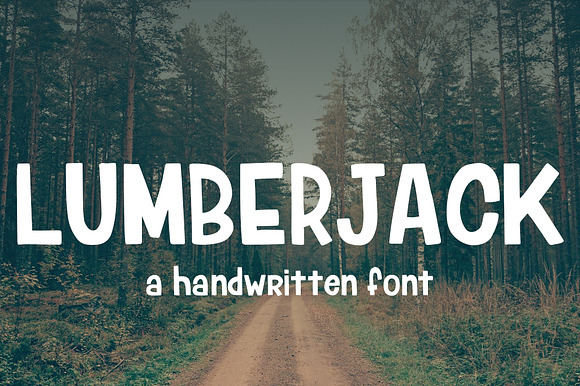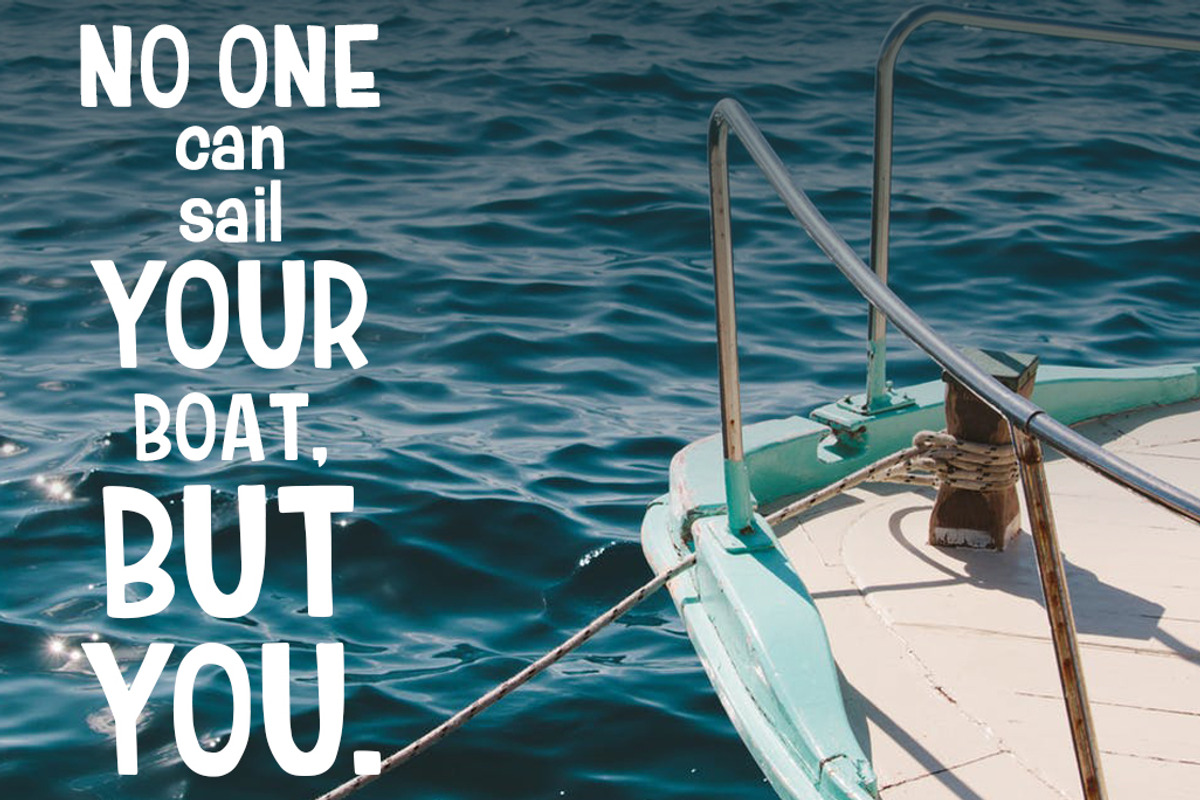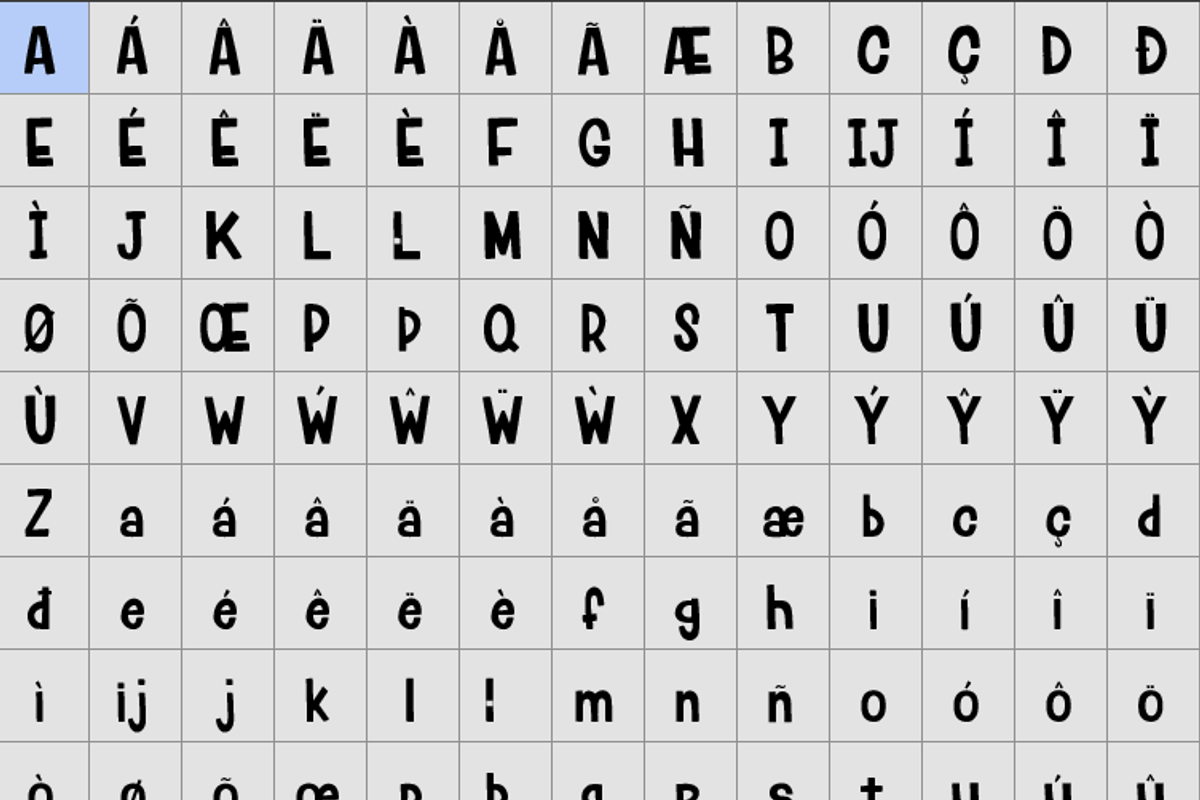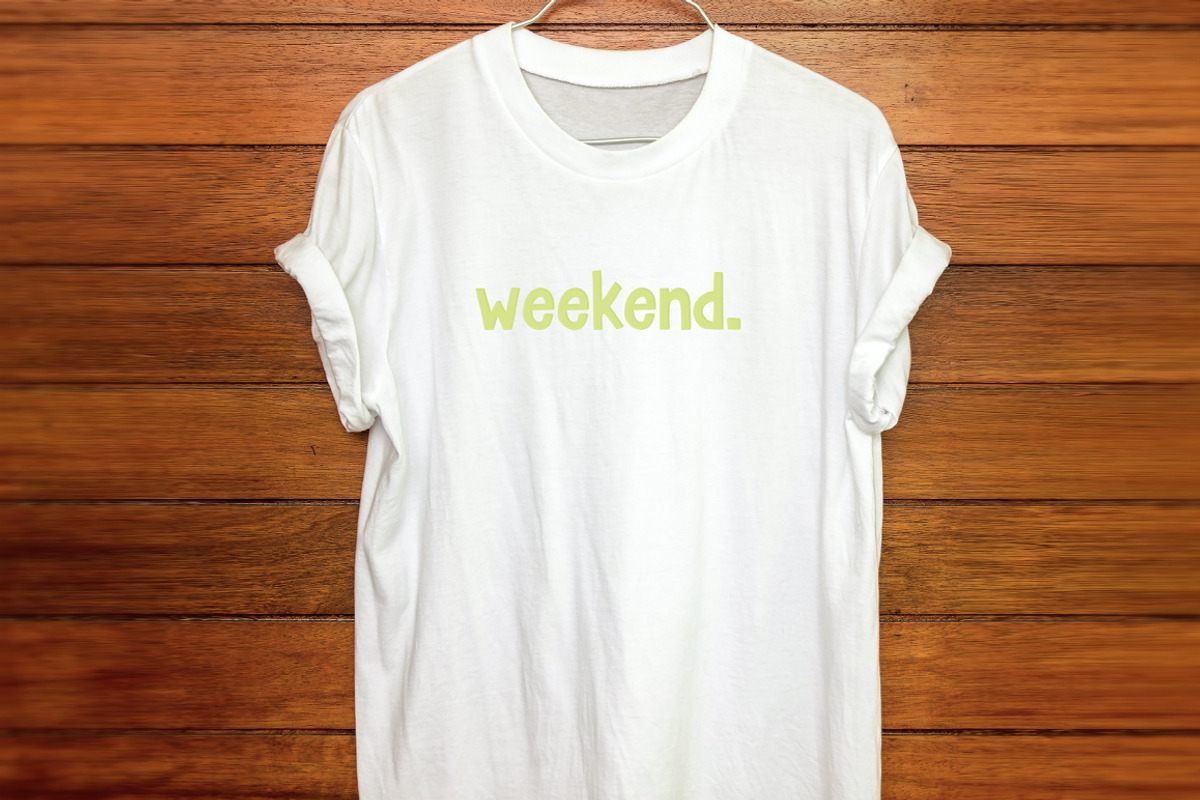
Lumberjack - Bold Hand-Lettered Font
Lumberjack – Bold Hand-Lettered Font for T-Shirts, Mugs, Cards & More Inspired by my passion for hand-lettering, Lumberjack is a bold, clean, and playful font that brings personality to every design. Whether you're crafting greeting cards, designing standout t-shirts, personalizing mugs, or creating social media graphics, Lumberjack fits right in with a wide range of creative projects.